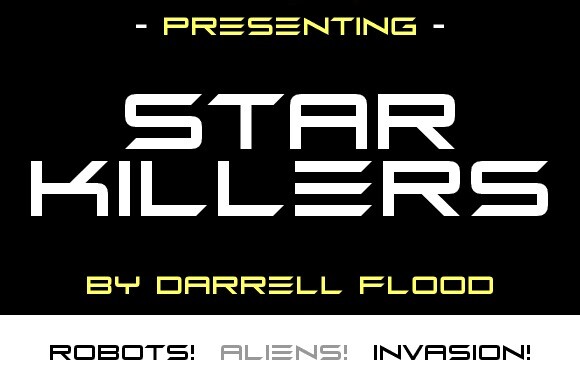
Star Killers Font
Star Killers Font is a big and bold futuristic font. This typeface is inspired by the need of an easy to read, attention grabber futuristic theme yet not too edgy. Perfect for alien invasions, space exploration and general modern or high-tech use!